Latest awesome free fonts handpicked from various places to this great post and are free for personal and commercial use. Collection based on clean and elegant script fonts, sans-serif fonts, brush fonts and modern creative fonts for logo design, branding projects, apparel, business cards, Web UI, packaging, advertising, book cover design, social media posts and blogs, e-commerce and any type of print or web invitations and many others print designs.
Here are 21 new free creative fonts, special made for your awesome typography design. The following typefaces and fonts are ideal to make an attractive design and fit for any artwork. Enjoy!
Half Free Font Family
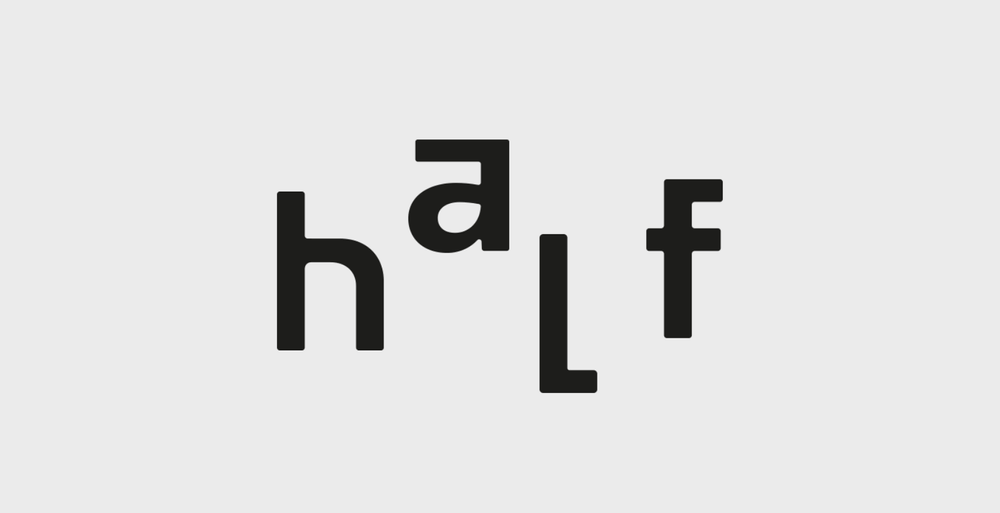
Free Great Sejagad Font
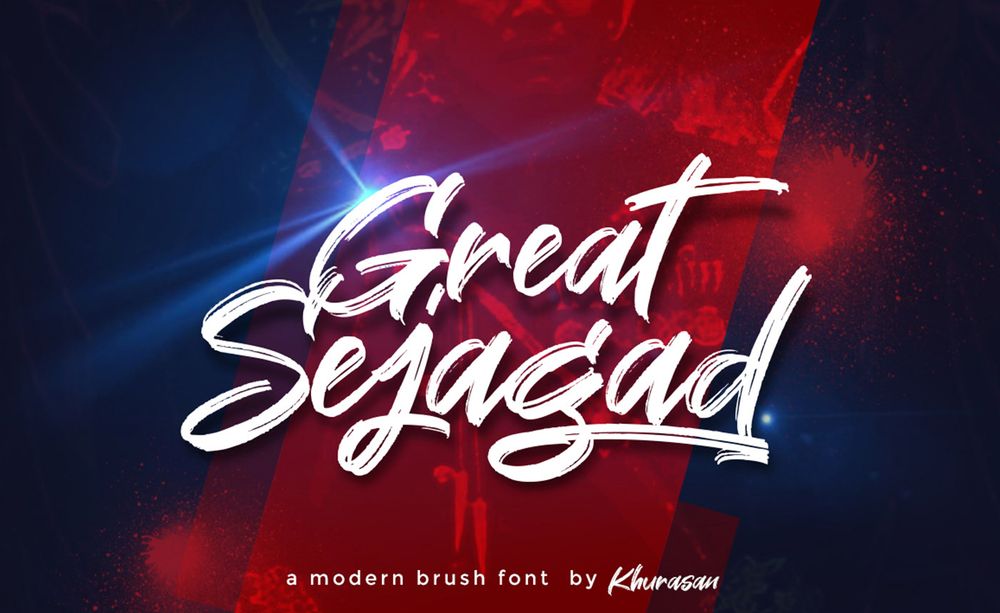
Gose Free Font
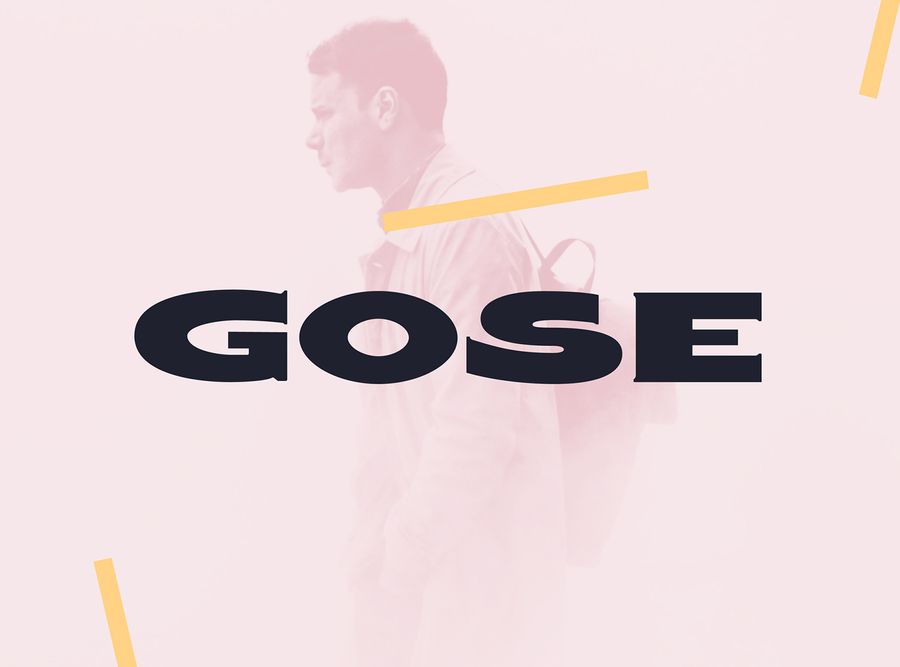
Rosabelia Script – Free Font
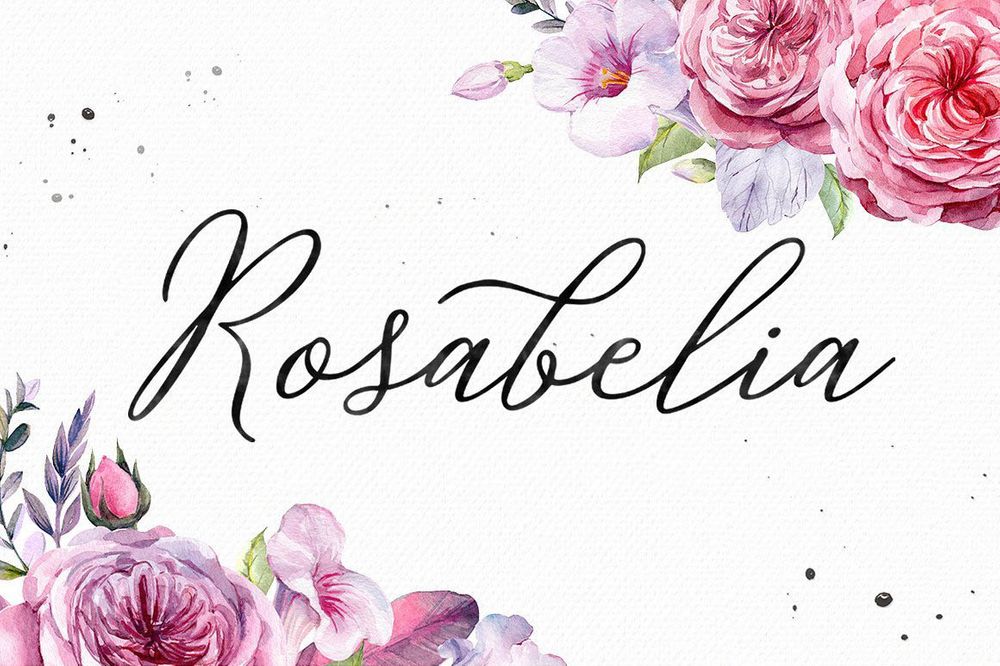
Vervelle Free Font
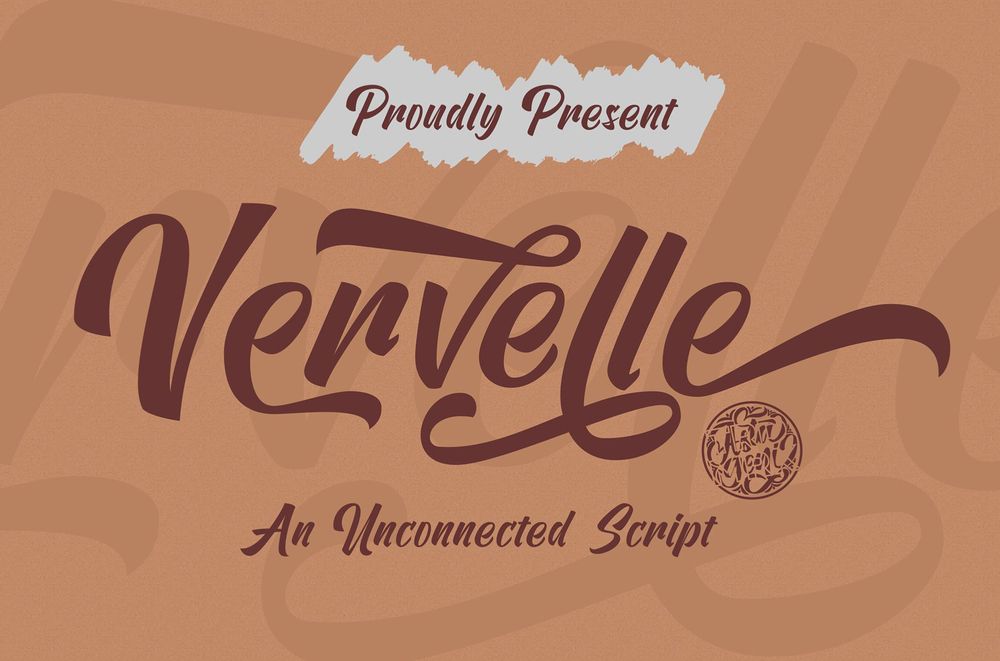
Hagraist Free Font Collection
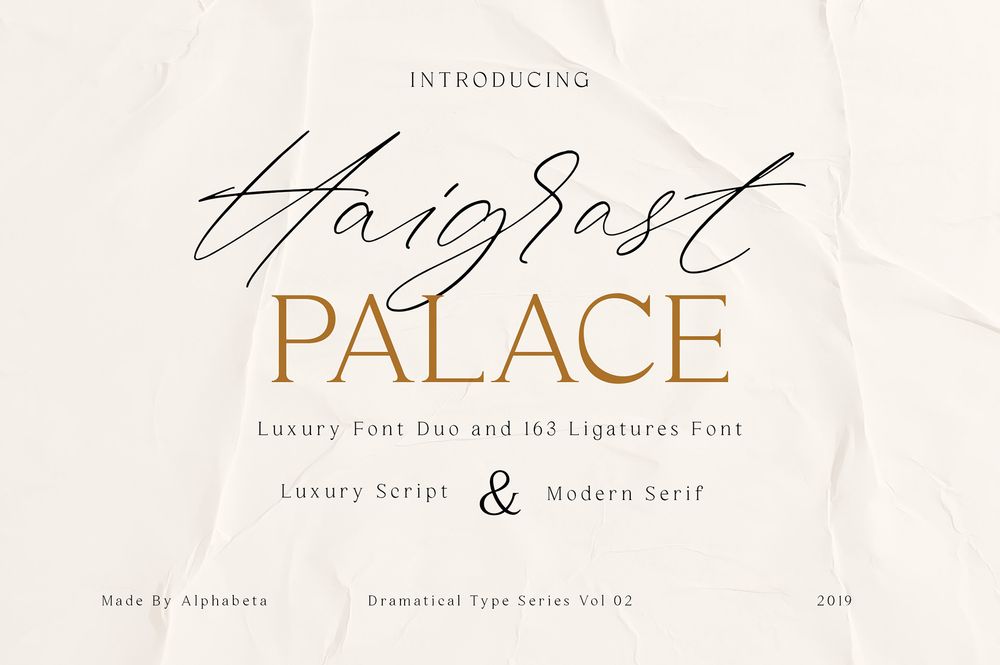
Agnes Free Display Font
Baby Bus Free Font
Neu Neu Free Display Font
Anita Jane – Free Font
Brut Gothic Free Font
Mainframe Free Font
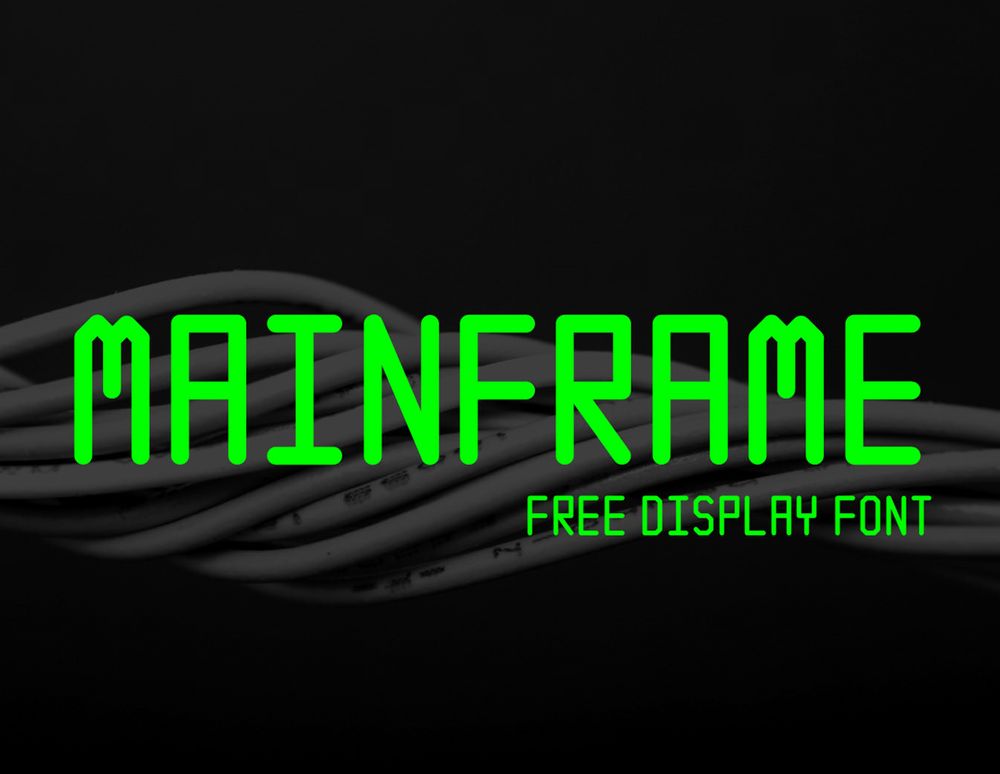
Scary Thorns Free Font
November Sans Free Font
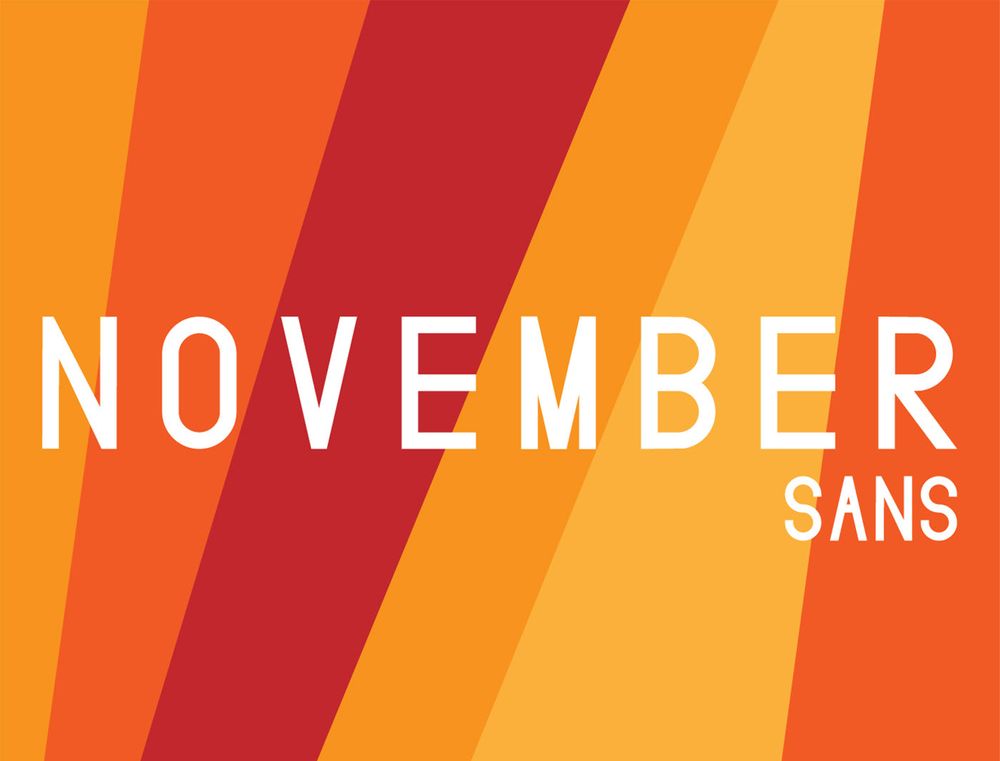
England Free Font
Mak Free Font
Obrazec Free Industrian Font
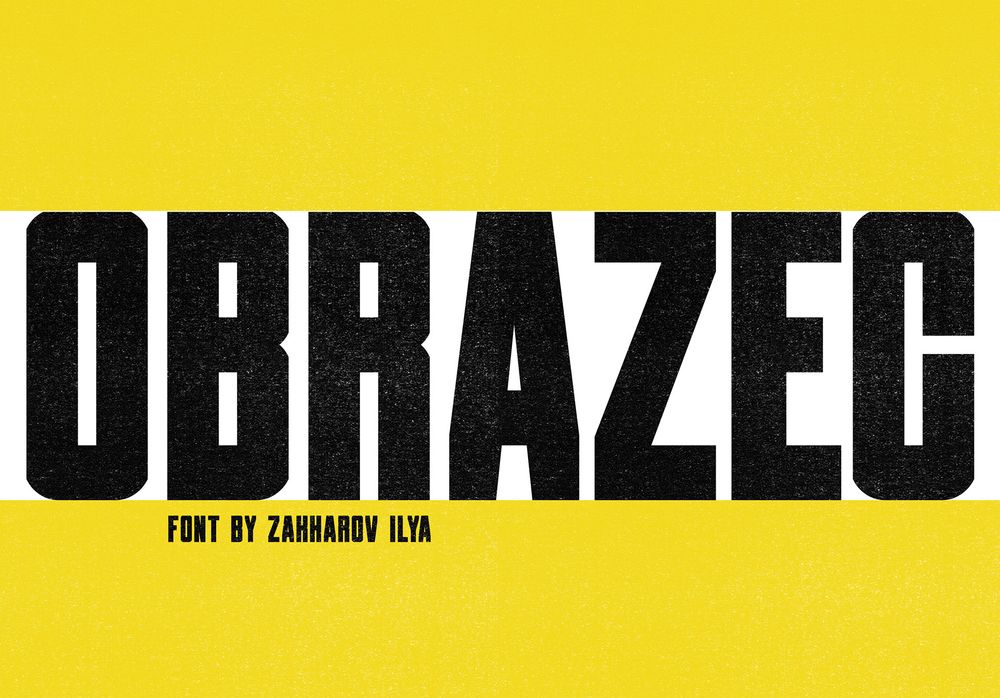
Shadow 60 Free Font
Shape Free Font
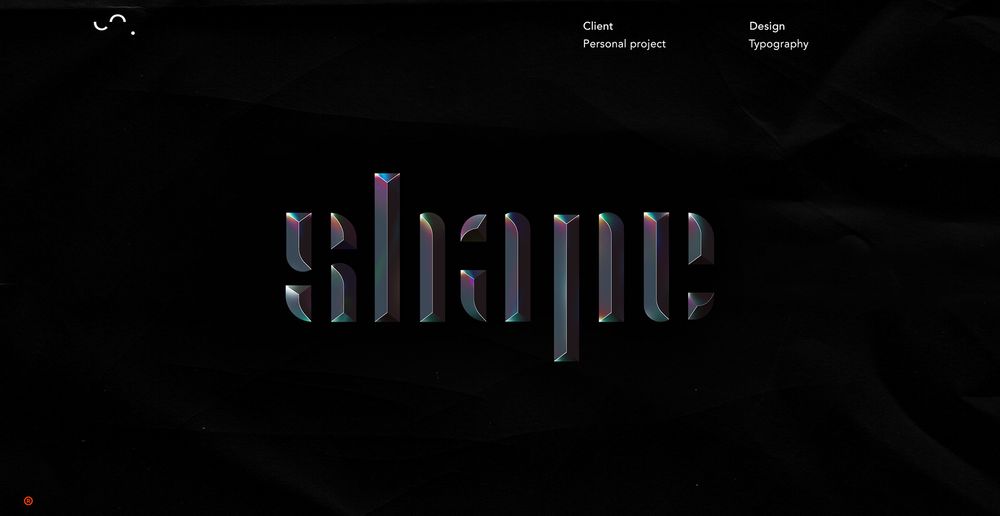
Shrimp Free Font
BBT Pamumundok Free Font